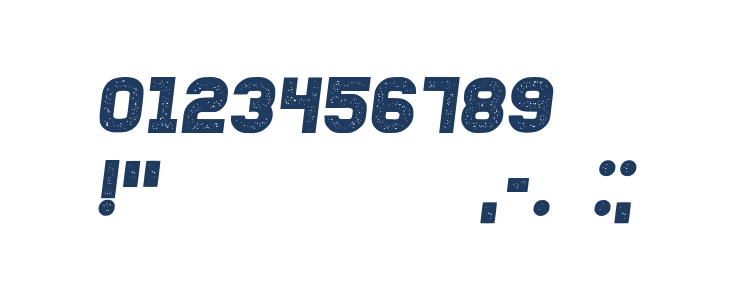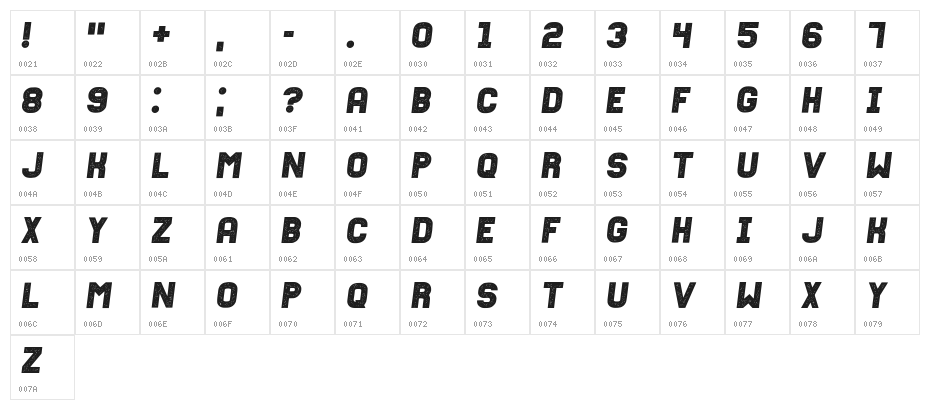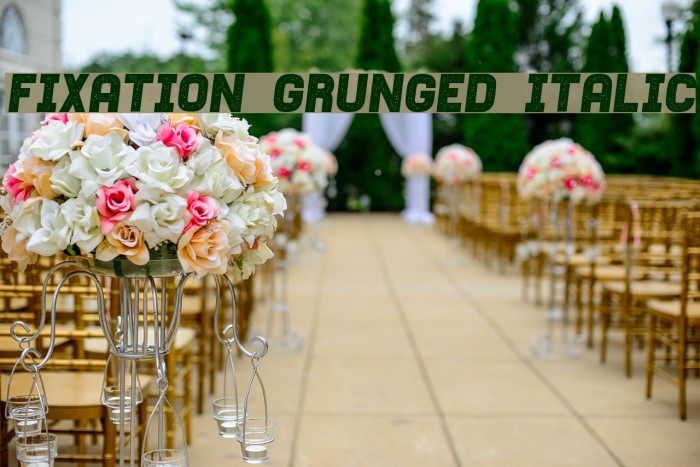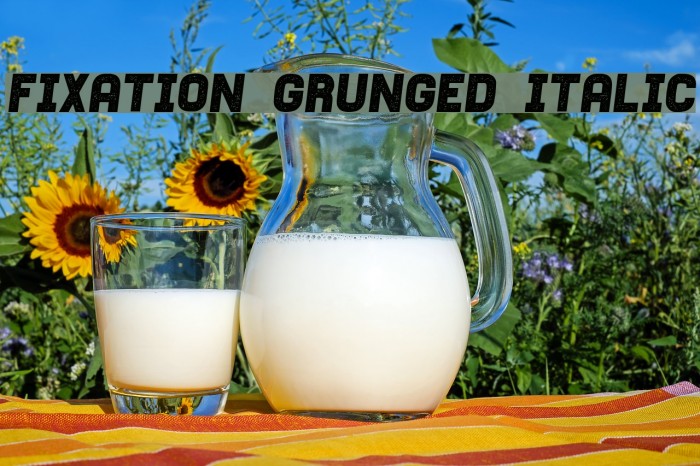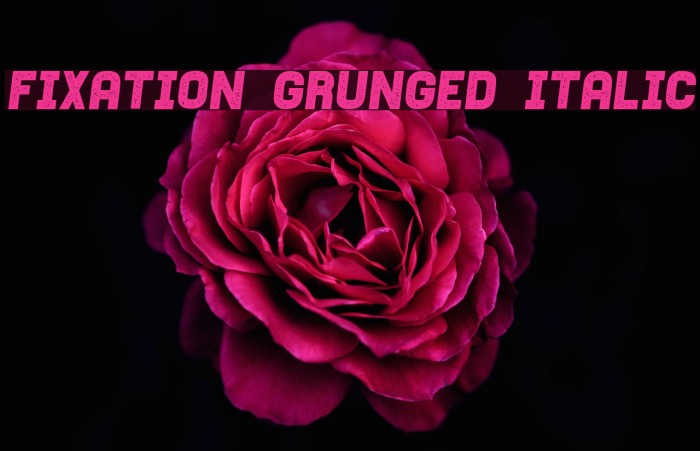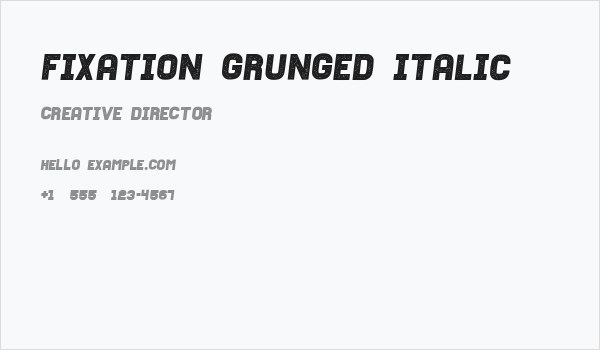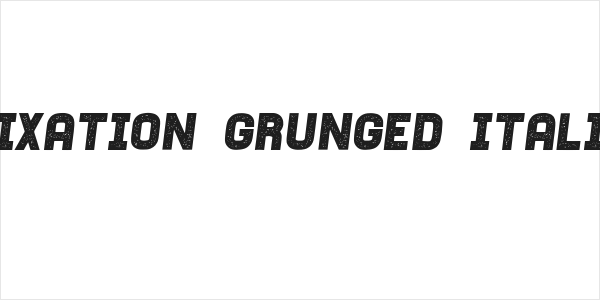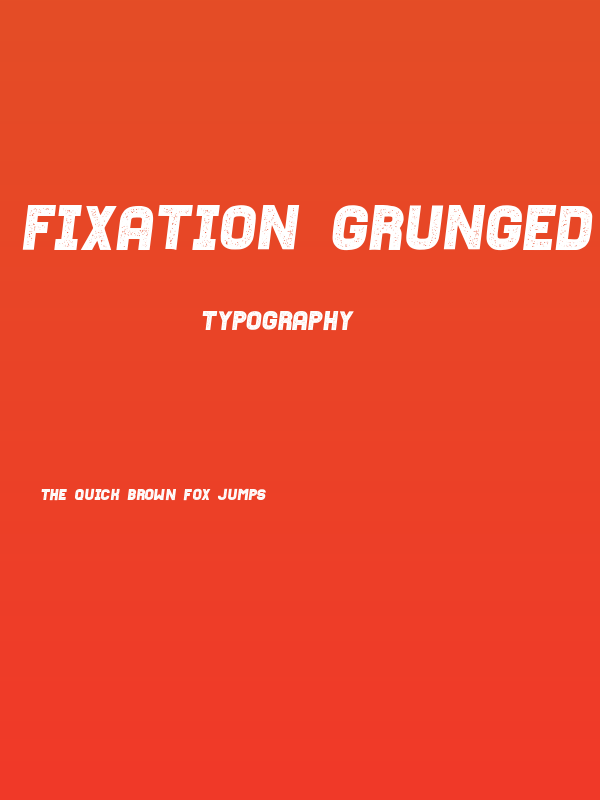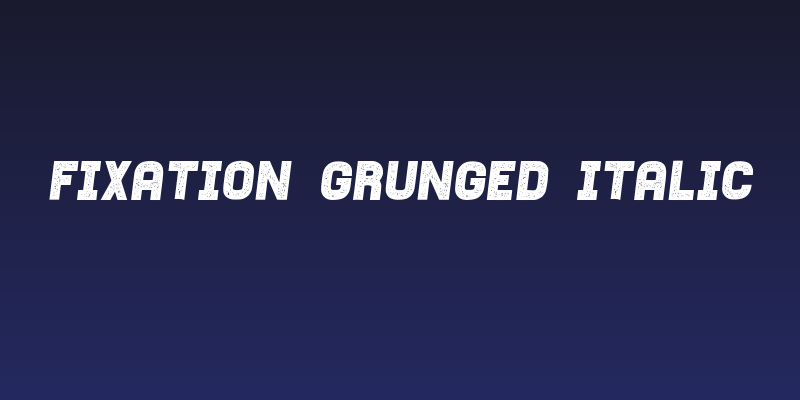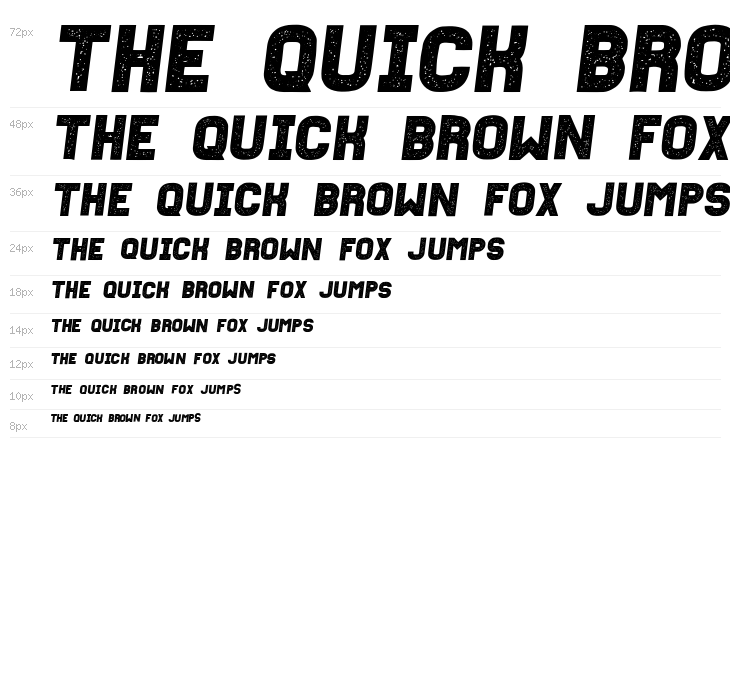
Fixation Grunged Italic Font
Fixation Grunged Italic Description
This font features a bold, italicized style with a distinct grunge texture that gives it a rugged and edgy appearance. The characters are slightly slanted, adding a dynamic feel to the text. The texture appears as a speckled pattern across each letter, creating a distressed look that is both modern and rebellious. The font maintains a consistent weight throughout, with wide, block-like characters that ensure readability while still conveying a sense of boldness. The overall design is perfect for projects that require a strong, impactful visual statement.
| Overall Style | Modern, Edgy |
| Proposed Projects | Ideal for music album covers, edgy branding, posters, and streetwear designs. |